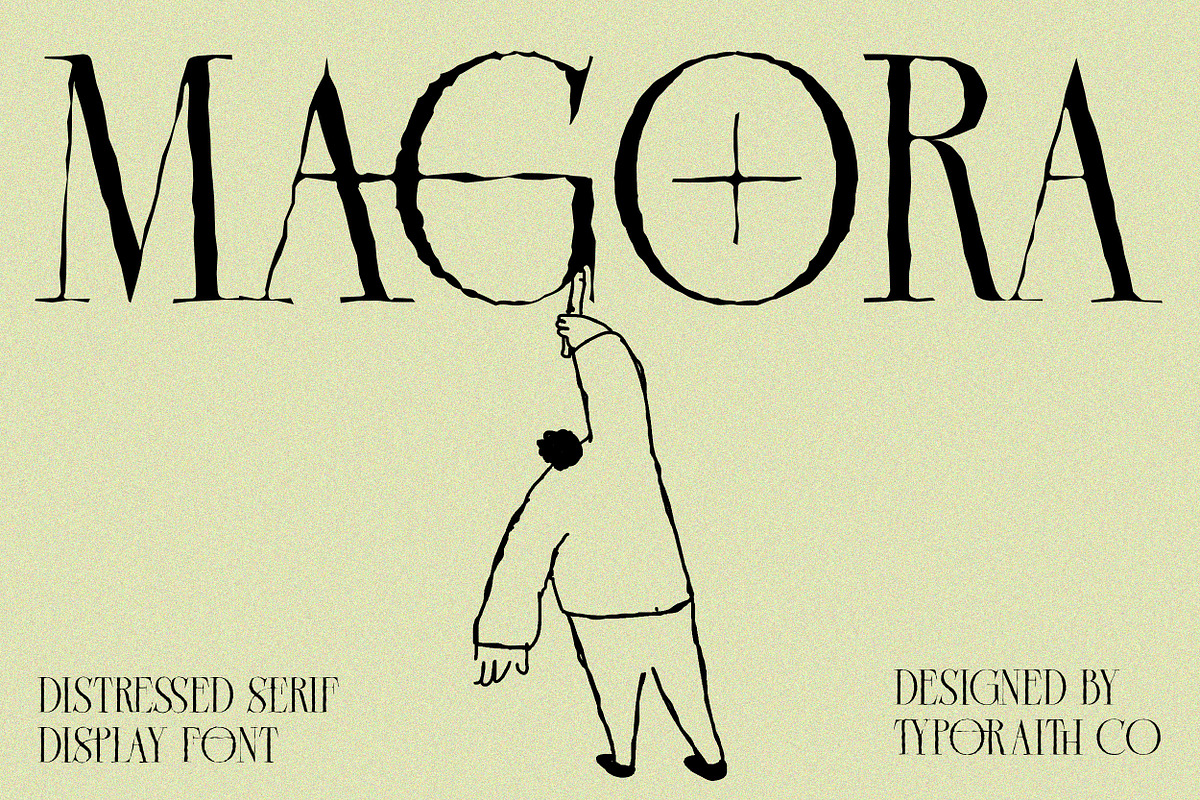
Magora commands attention with sharp serif terminals and deliberate distressed textures that deliver a bold, modern gothic presence. Designers who want expressive typography will find Magora active and purposeful: it emphasizes contrast, highlights dramatic letterforms, and injects visible texture that reads as handcrafted, not accidental. The font’s distressed details give headlines and logos a raw, editorial edge while the underlying serif structure maintains readability and refined balance.
Why Magora Elevates Creative Branding And Editorial Work
Magora elevates projects by marrying high-fashion sensibility with gritty visual emotion. Use it to create striking magazine mastheads, cinematic title treatments, album covers with attitude, and premium packaging that feels artisanal. The typeface projects confidence and mood — it supports storytelling through typography and ensures key messages stand out across both print and digital surfaces. Magora performs where character matters: it turns passive copy into memorable graphic statements.
Versatile Applications For Fashion, Music, And Visual Projects
Deploy Magora across a wide range of creative work where atmosphere and identity are central. The font actively enhances:
- Fashion editorials and lookbooks where mood drives presentation
- Luxury branding and logos that require distinctive serif marks
- Album artwork and promotional posters with cinematic impact
- Packaging and labels that benefit from artisanal texture and high-end tone
- Poster design and large-format display where distressed detail reads at scale
How Magora Shapes Visual Storytelling And Brand Voice
Magora creates an immediate personality for brands and creative pieces. Its textured letterforms hint at history and craftsmanship while the modern serif skeleton keeps messages legible and professional. This combination lets designers craft identities that feel both established and experimental — ideal for labels, bands, boutique fashion houses, and editorial teams seeking a strong, characterful voice.
- Ligatures and stylistic touches that accent display settings
Design Pairings, Best Practices, And Implementation Tips
Pair Magora with clean, neutral sans-serifs for body copy to avoid competing textures. When using Magora as a headline, increase letter spacing slightly to showcase its distressed details without sacrificing legibility. Choose high-contrast backgrounds to keep the textured edges readable, and reserve the most ornate alternates for large-scale artwork or feature logos.
Practical Tips For Strong Visual Results
- Use Magora for focal headlines and logo marks to maximize impact.
- Combine with a neutral sans-serif for supporting copy and UI elements.
- Test at intended output sizes to ensure distressed details render cleanly.
- Export outlined vectors for print to retain subtle textures and strokes.
- Ligatures and stylistic alternates
- Unique distressed letterforms crafted for display use
Perfect For High-Impact Creative Projects
Magora fits projects that demand personality and visual drama: fashion branding, editorial design, poster campaigns, luxury logos, gothic themes, album artwork, creative headlines, and modern vintage design. The typeface empowers designers to create strong visual identities and emotionally resonant layouts that engage audiences and hold attention.